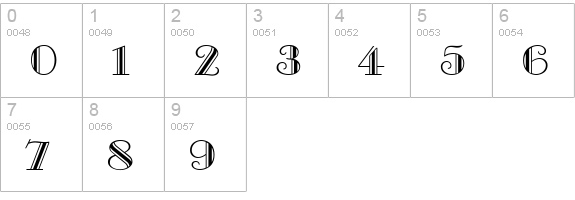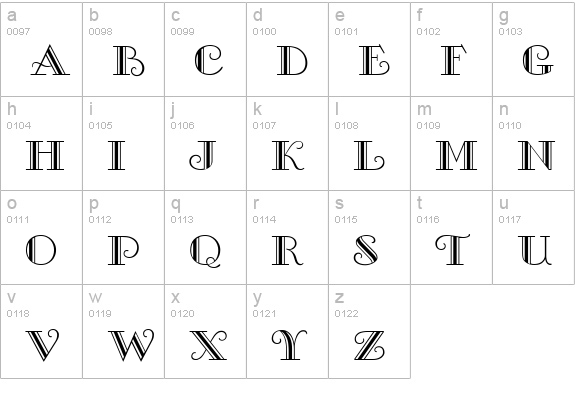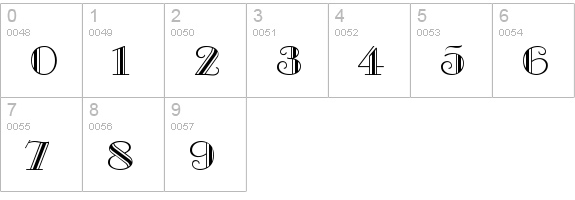
CgGallia Font Details
CgGallia font is a modern and stylish typeface that exudes elegance and sophistication. With its sleek lines and clean design, this font is perfect for a wide range of design projects, from branding to print materials. The versatility of CgGallia makes it a popular choice among designers looking for a font that can easily adapt to different styles and themes. What sets CgGallia font apart is not only its aesthetic appeal but also its accessibility. This font is freely available to download at FontsMarket.com, making it an excellent option for designers on a budget or those looking for high-quality fonts without breaking the bank. Whether you're working on a personal project or a client's design, CgGallia font is sure to elevate your work and leave a lasting impression.